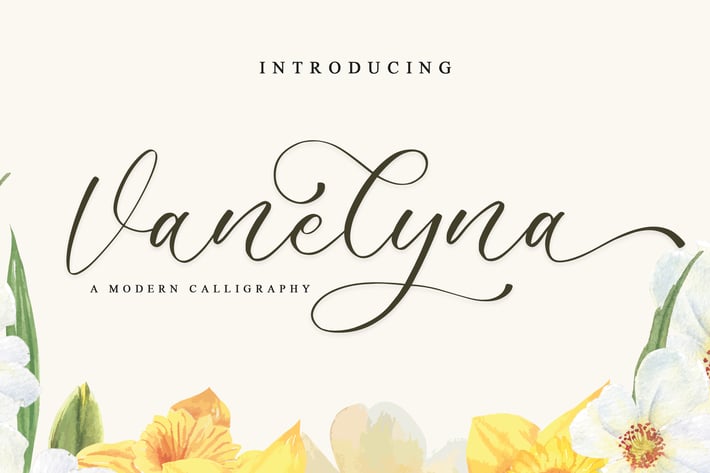
Vanelyna - A Lovely Script Font
Vanelyna is a delicate and elegant handwritten font. Its distinct and well balanced letters make this font a masterpiece.
Modern Handwritten Font
Beautiful Swash (Ending tail)
Beautiful Titling (Beginning tail)
Special Ligatures